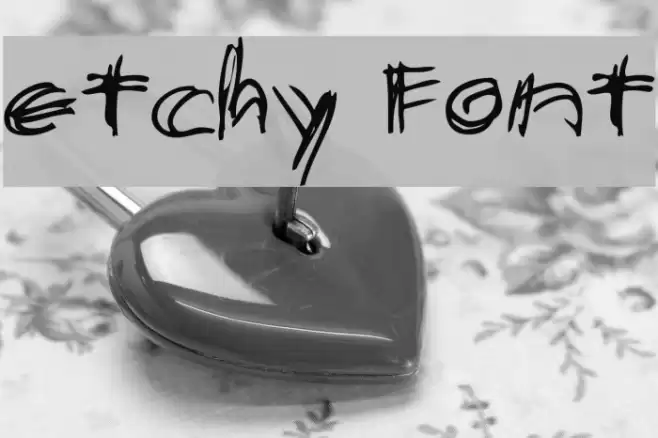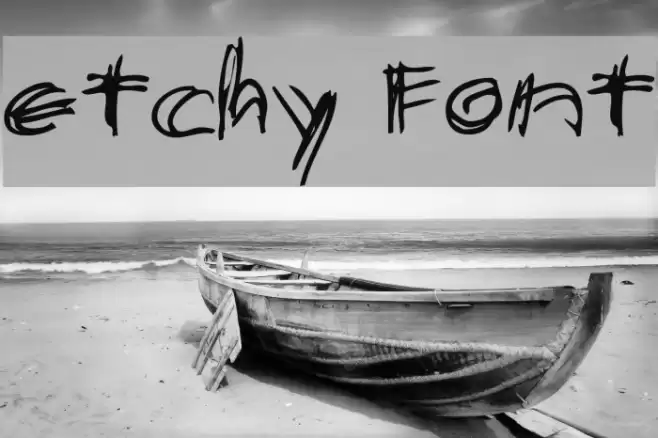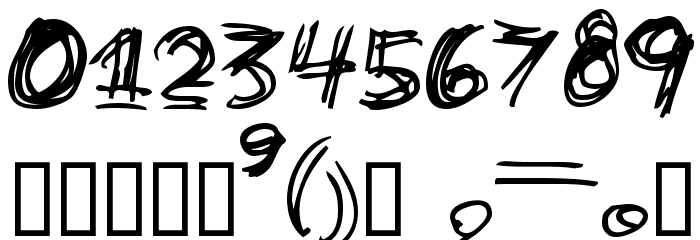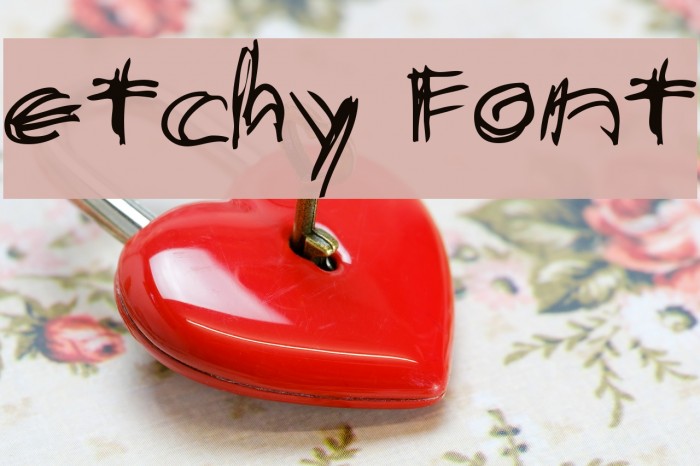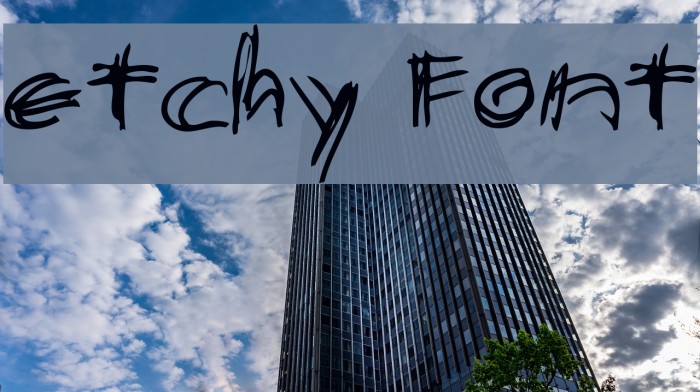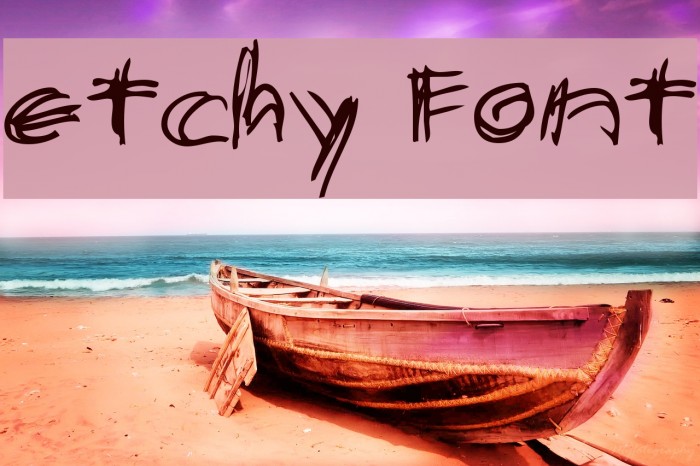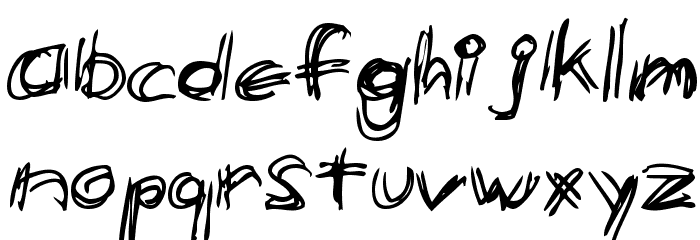
etchy Font
etchy Description
This font features a highly expressive and dynamic style, characterized by its rough, sketch-like appearance. The strokes are irregular and bold, giving it a hand-drawn, artistic feel. Each character appears as if it has been hastily sketched with a marker, adding a sense of urgency and energy. The uppercase and lowercase letters maintain this energetic style, with varying stroke thicknesses that create a visually striking contrast. Numbers and special characters follow the same aesthetic, ensuring consistency throughout. This font is ideal for projects that require a bold, creative touch.
A bold, sketch-like font with an energetic, hand-drawn style from Script fonts.
- Proposed Projects: Perfect for artistic posters, edgy branding, album covers, and creative social media graphics.